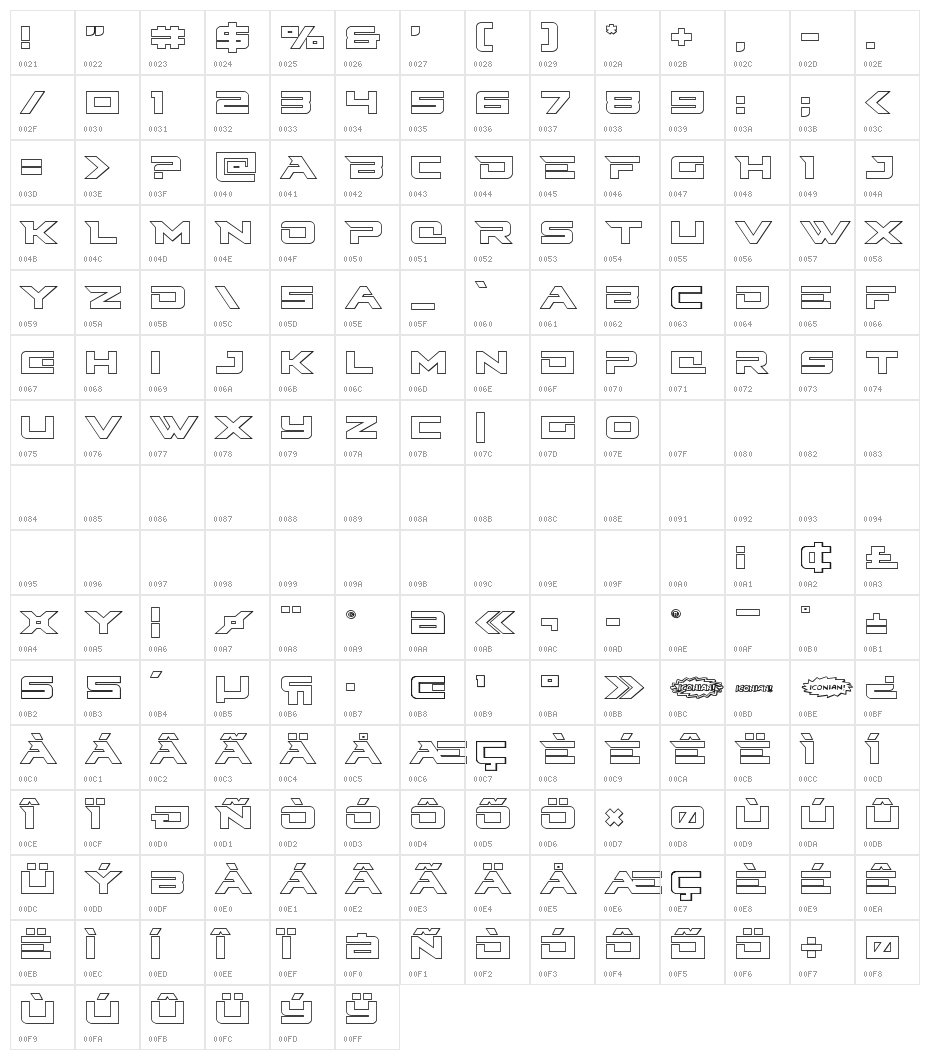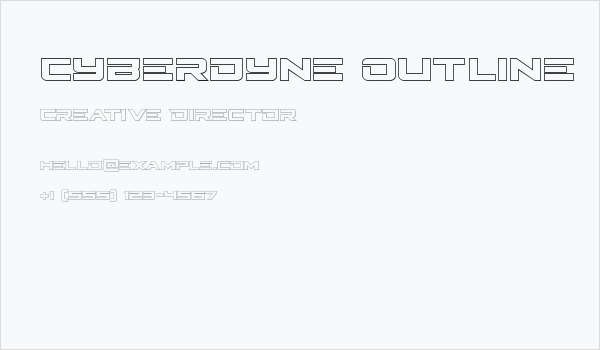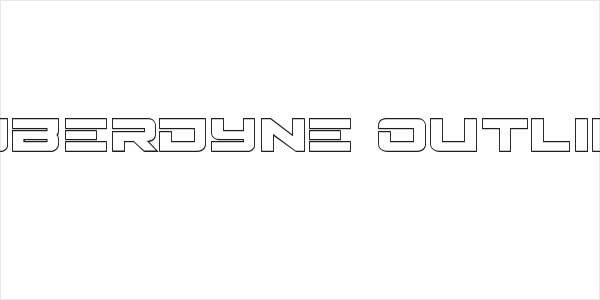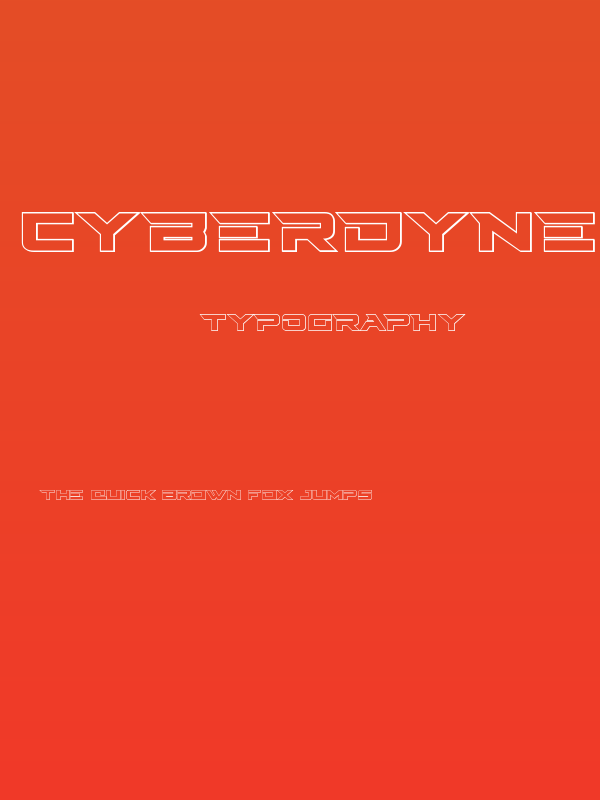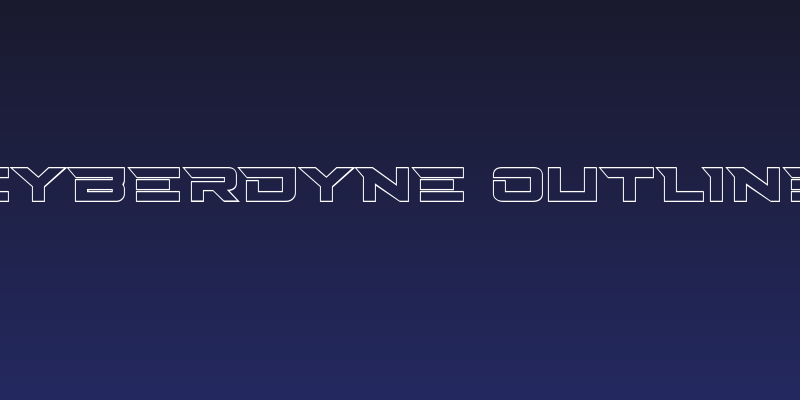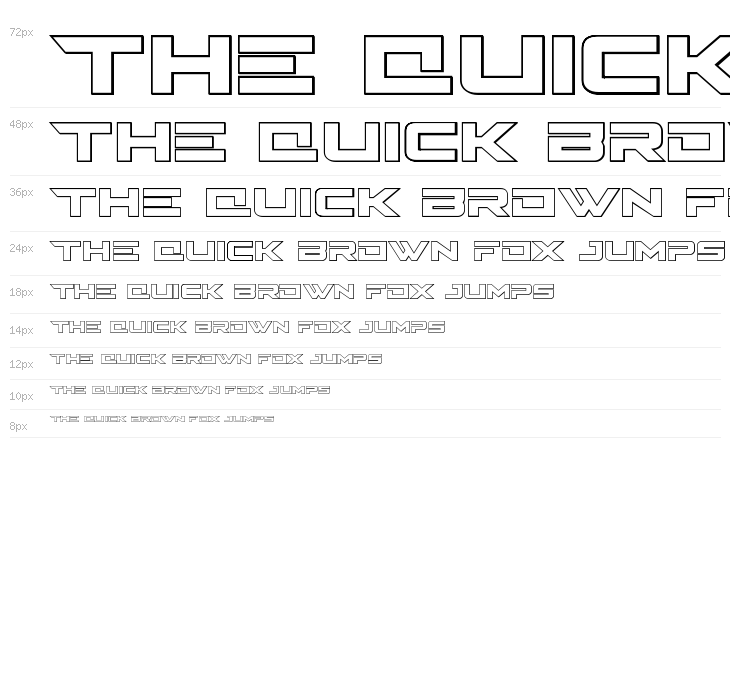
Cyberdyne Outline Font
Cyberdyne Outline Description
This font features a futuristic and geometric design with an outline style that gives it a distinct, tech-inspired appearance. The characters are constructed with clean, angular lines that form a hollow interior, emphasizing the outline effect. The uppercase letters are bold and commanding, while the numbers and special characters maintain the same structural integrity. The design is consistent across all characters, providing a cohesive look that is both modern and edgy. The font's unique style makes it suitable for projects that require a high-tech or digital aesthetic.
| Proposed Projects | Ideal for technology branding, sci-fi movie posters, video game titles, and digital media. |